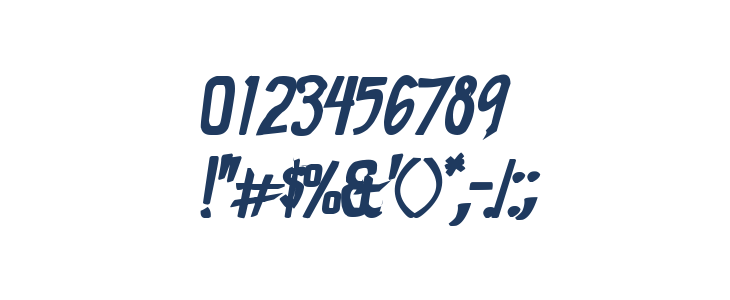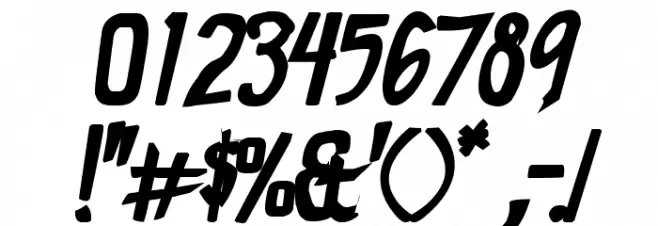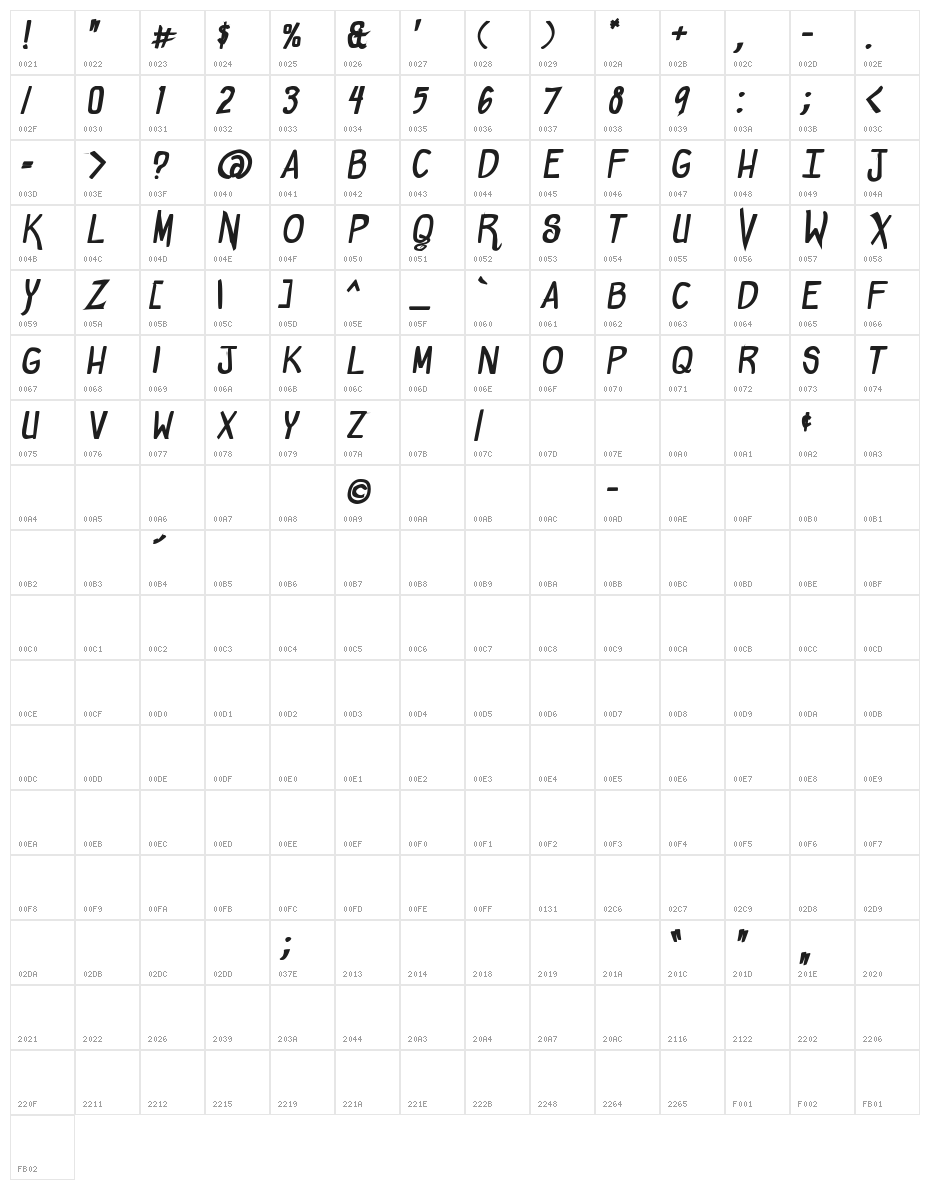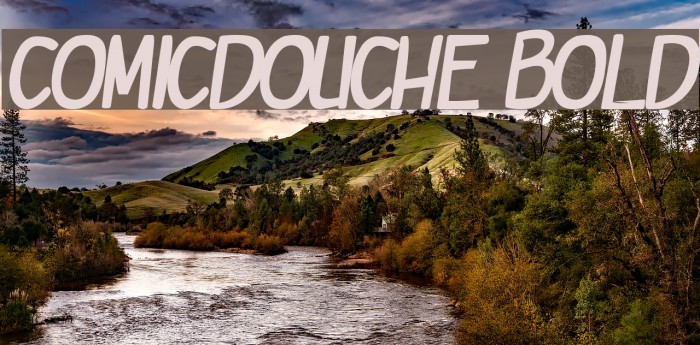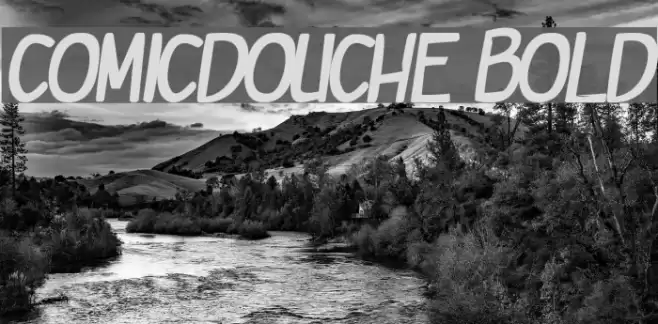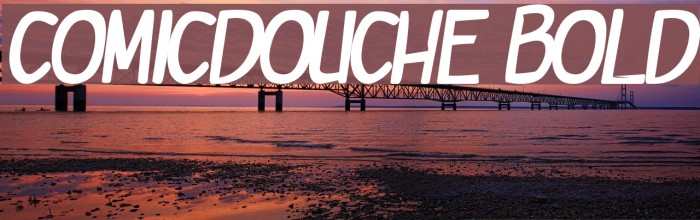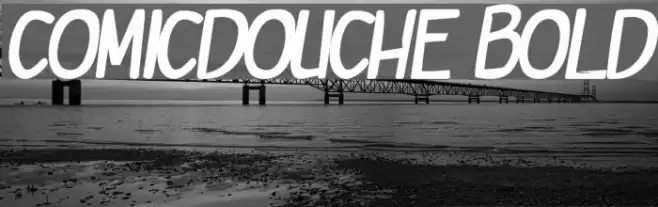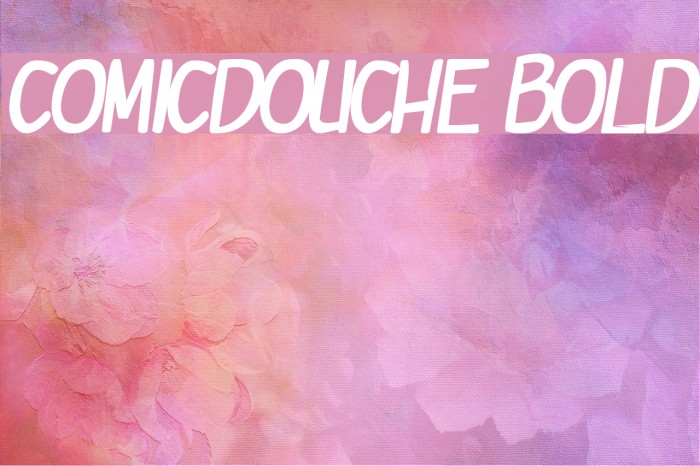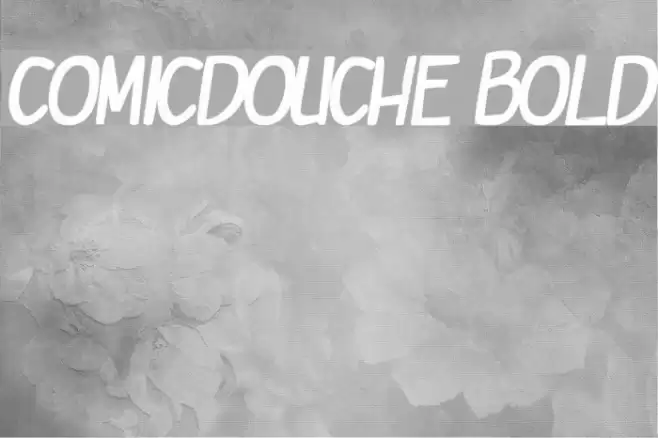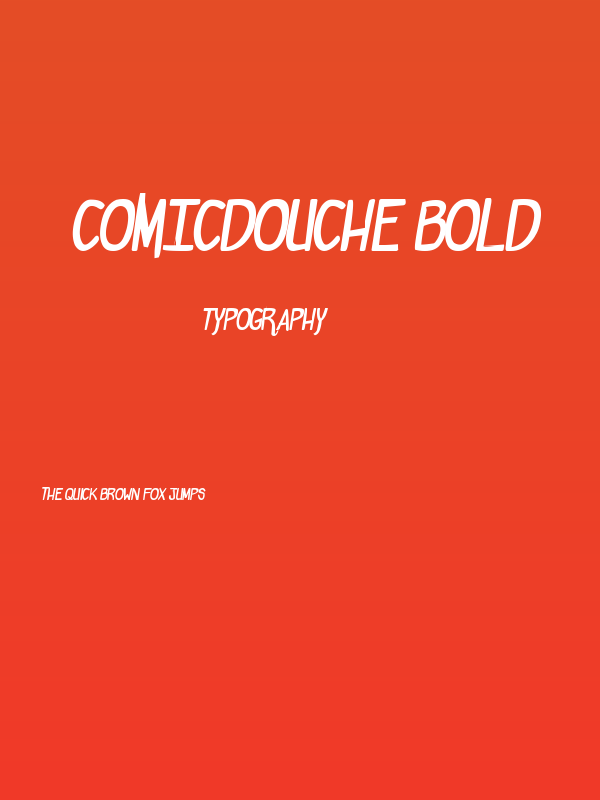
comicdouche Bold Font
comicdouche Bold Description
This font features a bold and dynamic style with a playful, comic-like appearance. The characters are slightly slanted, giving a sense of motion and energy. The strokes are thick and uneven, adding to the informal and whimsical feel. The uppercase and lowercase letters maintain a consistent style, with exaggerated curves and angles. Numbers and special characters follow the same playful design, making the font suitable for creative and informal projects. The overall look is eye-catching and ideal for capturing attention in a fun and engaging way.
| Overall Style | Playful, Comic |
| Proposed Projects | Ideal for comic books, children's books, playful branding, and creative posters. |